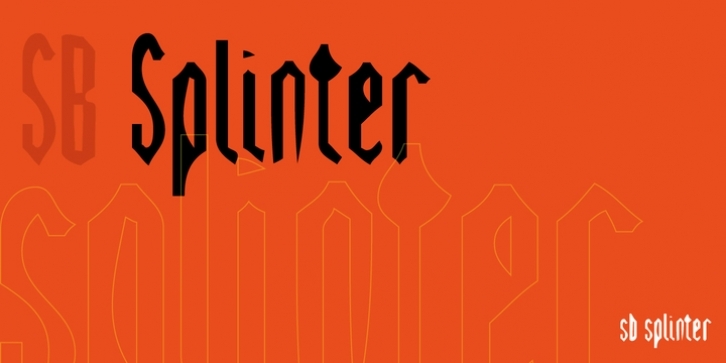
SB Splinter is a nineties style grunge typeface with a technological slant.
SB Splinter is a distressed gothic headline typeface. The outlines were created with the autotrace feature in FreeHand 3.